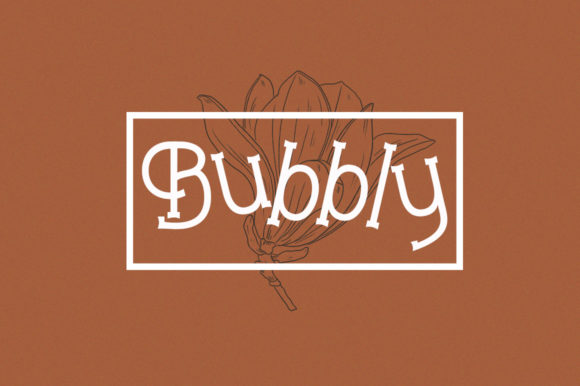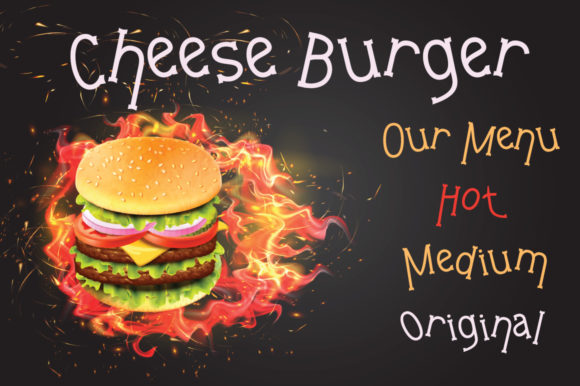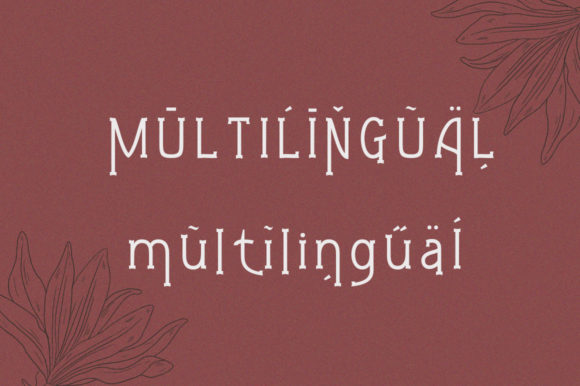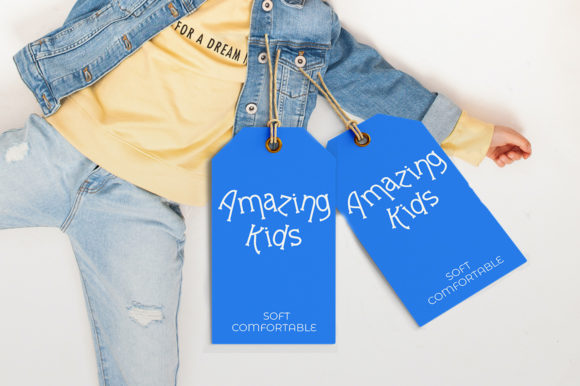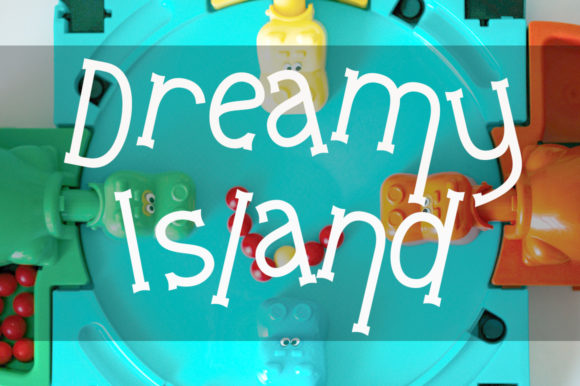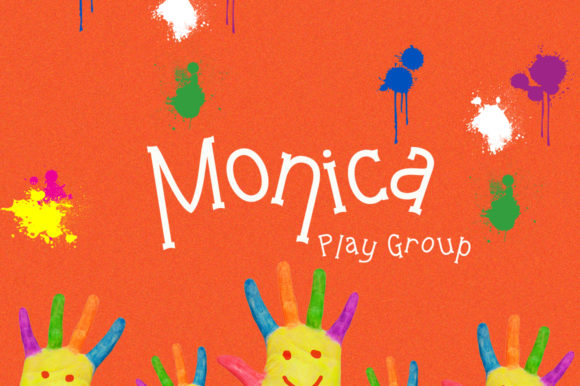
Gleams Font: A Playful and Quirky Serif Font to Elevate Your Creations
Are you tired of using the same old fonts in your designs? Look no further than Gleams Font, a playful and quirky serif font that’s sure to add a touch of personality to any project. With its unique charm and versatility, Gleams Font is an incredibly valuable asset to any font library, and can help take your creations to the next level.
The Characteristics of Gleams Font
Gleams Font is a serif font, which means it features small lines or flourishes at the ends of the letters. This gives it a classic, timeless feel that’s perfect for a wide range of design applications. But what really sets Gleams Font apart is its playful and quirky personality. The font features irregular shapes and sizes, which gives it a fun and whimsical feel that’s sure to grab attention.
Despite its playful nature, Gleams Font is also surprisingly versatile. It can be used for a wide range of projects, from children’s books and educational materials to branding and advertising. And with its clear and legible letterforms, it’s even suitable for use in digital media, such as websites and social media graphics.
The Benefits of Using Gleams Font
So why should you consider adding Gleams Font to your font library? Here are just a few benefits of using this unique and versatile font:
- Adds personality to your designs: With its playful and quirky personality, Gleams Font is the perfect way to add some character to your designs. Whether you’re working on a branding project or a children’s book, this font is sure to help your project stand out.
- Versatile and adaptable: Gleams Font is surprisingly versatile, and can be used for a wide range of projects and applications. Whether you’re working on a digital project or a print project, this font is sure to be a great fit.
- Legible and easy to read: Despite its playful nature, Gleams Font is also clear and legible, making it perfect for use in digital media and other applications where readability is key.
- Unique and eye-catching: With its irregular shapes and sizes, Gleams Font is sure to grab attention and make your designs stand out. Whether you’re working on a branding project or a marketing campaign, this font is sure to help you get noticed.
How to Use Gleams Font in Your Designs
So how can you start using Gleams Font in your designs? Here are a few tips and ideas to get you started:
- Pair it with a sans-serif font: For a bold and eye-catching look, try pairing Gleams Font with a sans-serif font. This will create a fun and modern contrast that’s sure to grab attention.
- Use it for headings and titles: Gleams Font is perfect for use in headings and titles, where its playful and quirky personality can really shine. Try using it to add some personality to your section headings or titles.
- Experiment with different colors and textures: To really make Gleams Font pop, try experimenting with different colors and textures. This will help you find the perfect look to match your brand or design style.
In conclusion, Gleams Font is a playful and quirky serif font that’s sure to add a touch of personality to any project. With its unique charm and versatility, it’s an incredibly valuable asset to any font library, and can help take your creations to the next level. Whether you’re a designer, craft, or simply someone who loves to create, Gleams Font is definitely worth checking out.
So why not give Gleams Font a try today, and see how it can help elevate your designs and take your creativity to new heights?